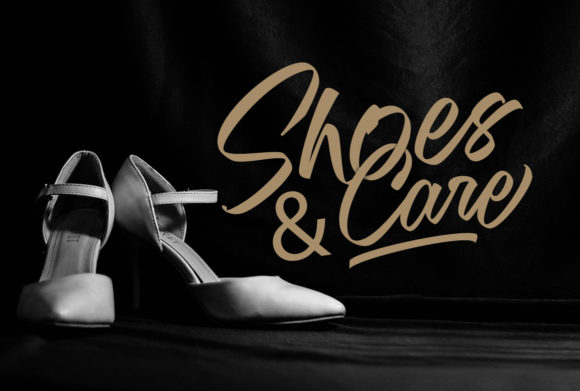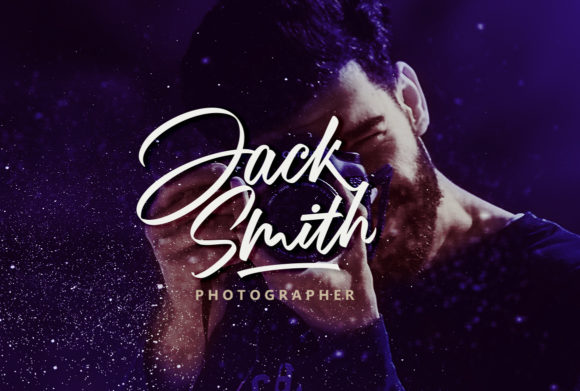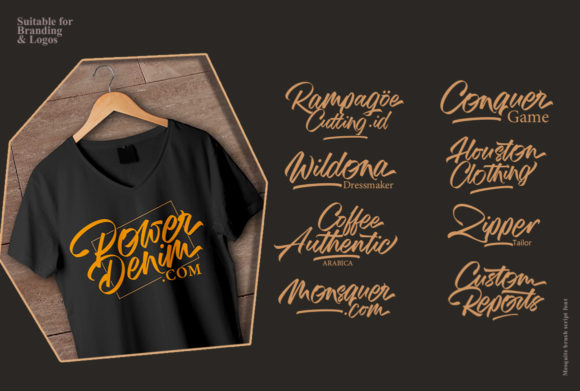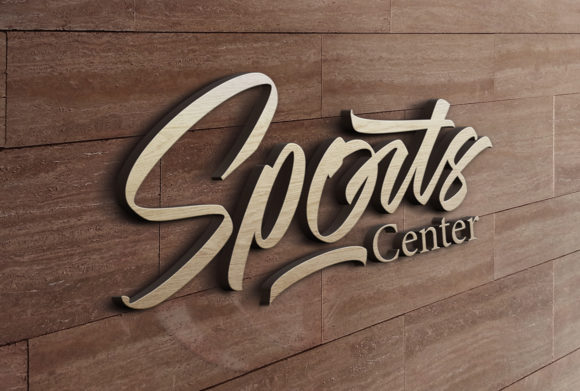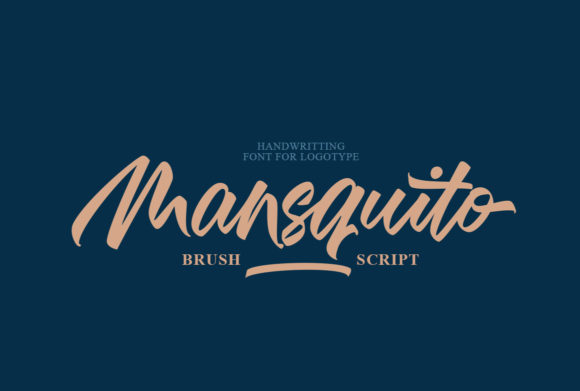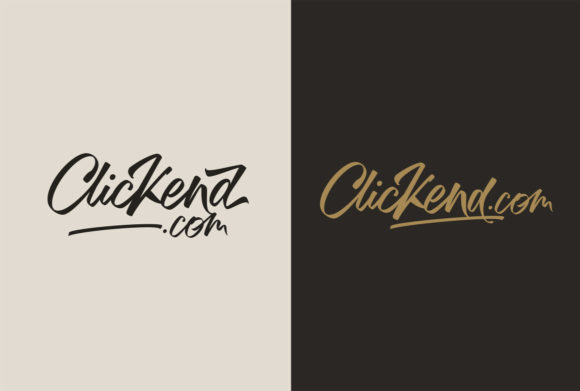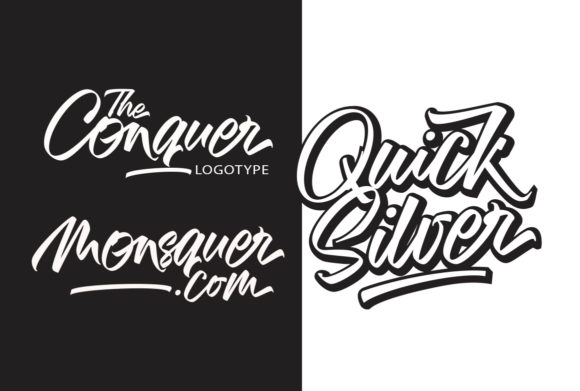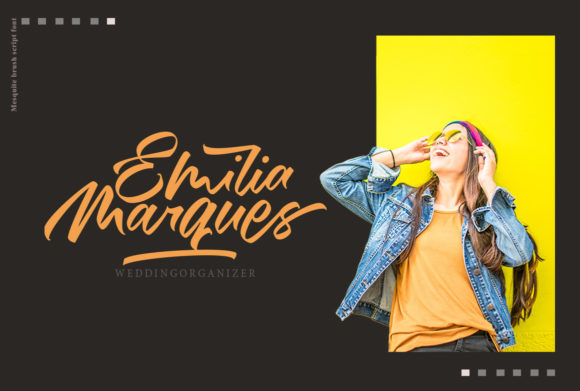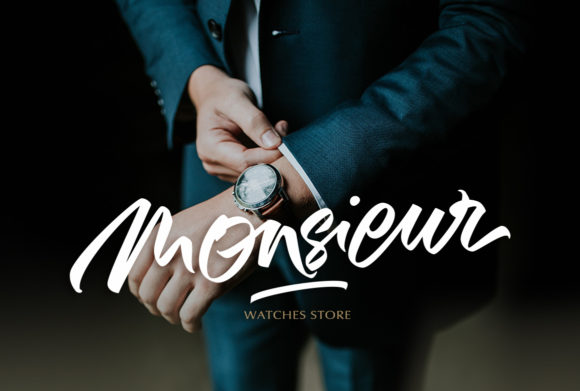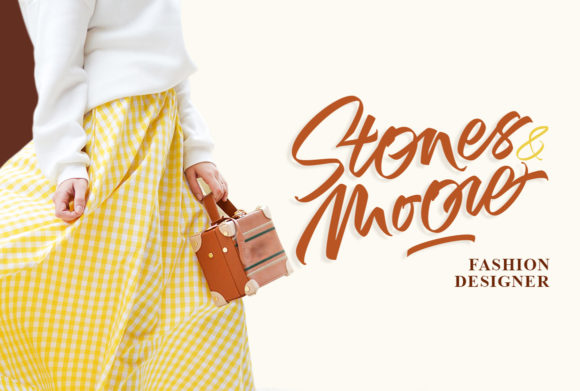
HomeScript FontsMansions Font Script Fonts Mansions Font FacebookXPinterestWhatsApp Mansions Font Poster 2 Mansions Font Poster 3 Mansions Font Poster 4 Mansions Font Poster 5 Mansions Font Poster 6 Mansions Font Poster 7 Mansions Font Poster 8 Mansions Font Poster 9 Mansions Font Poster 10 Mansions Font Poster 11 About Mansions Font Mansions is a brush-style handwritten font that is soft and modern. Get inspired by its contemporary coolness! DOWNLOAD ON CREATIVE FABRICAThis font is sold and delivered by Creative Fabrica. Font Canyon may earn a commission if you buy through this link. People also explored Barbeca Font ZP Say Why Font Royal Grande Font PAG Transformacio Green Flower Font Jilliant Masking School Font Silliza Script Font Davinia Font 286 0 TagsMansions Font Previous articleAbella FontNext articleEsthetic Font LEAVE A REPLY Cancel reply Comment: Please enter your comment! Name:* Please enter your name here Email:* You have entered an incorrect email address! Please enter your email address here Website: Save my name, email, and website in this browser for the next time I comment. Personal Use Free Cute Butterfly Personal Use Free Read more about this font Archeology Personal Use Free Read more about this font Setta Personal Use Free Read more about this font Almonte Personal Use Free Read more about this font BLOG Where to Buy American Fonts Online in 2024 Where to Buy American Fonts Online: The Ultimate Guide for 2024 Looking for the perfect American font to elevate your design projects? You're in the... Modern Sans-Serif Fonts That Brands Love in 2025 The 10 Best Handwriting Fonts to Add Personality to Your Designs Free vs Paid Fonts: Why Investing in Premium Fonts Is Worth It